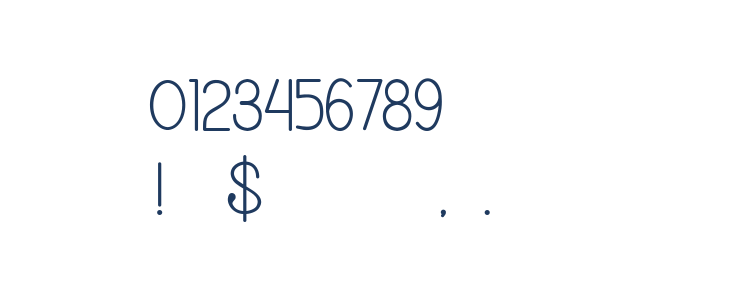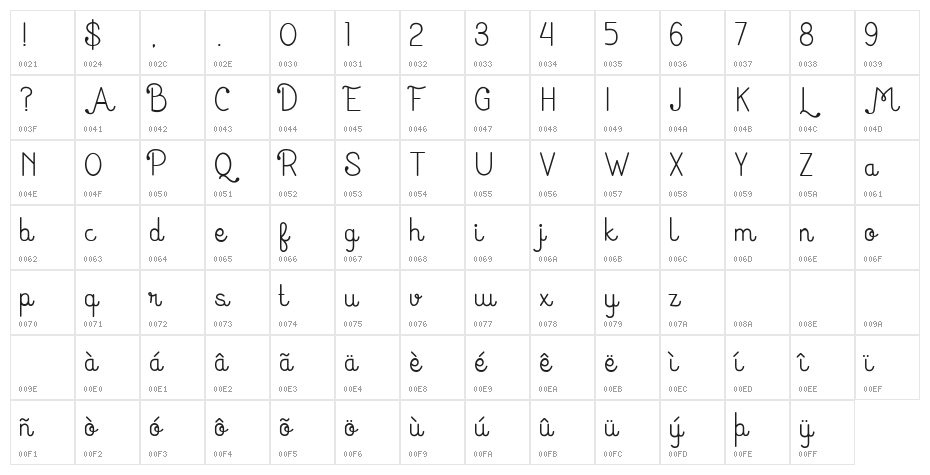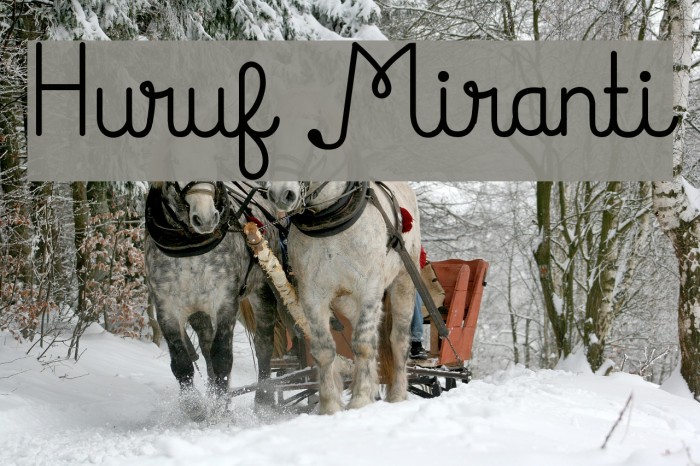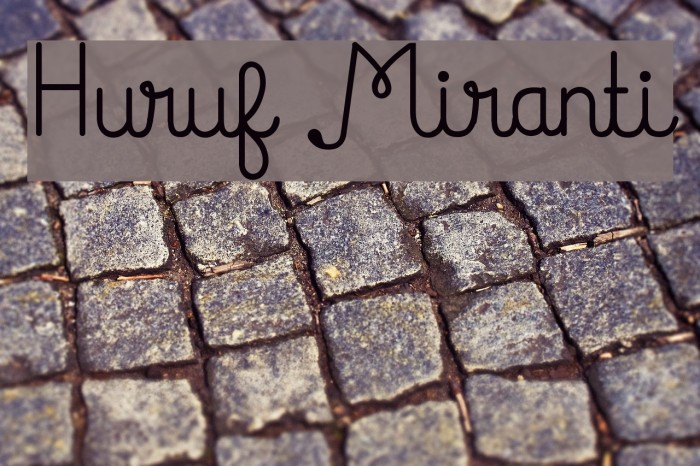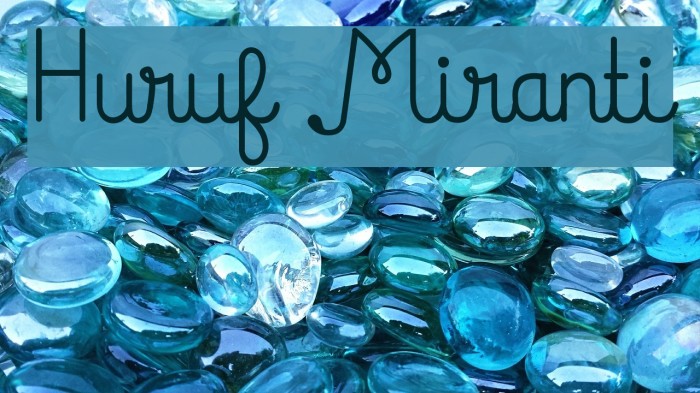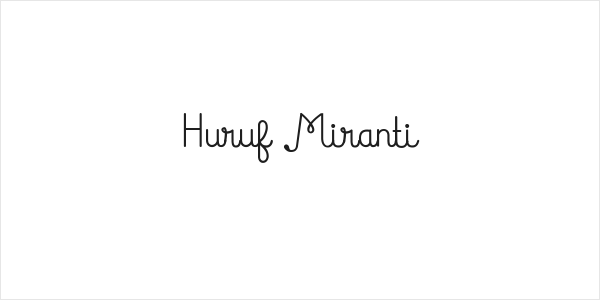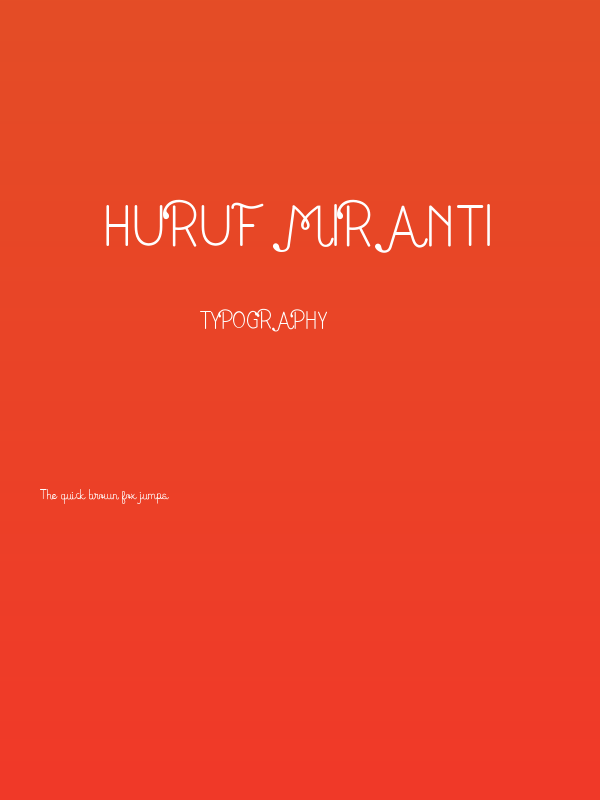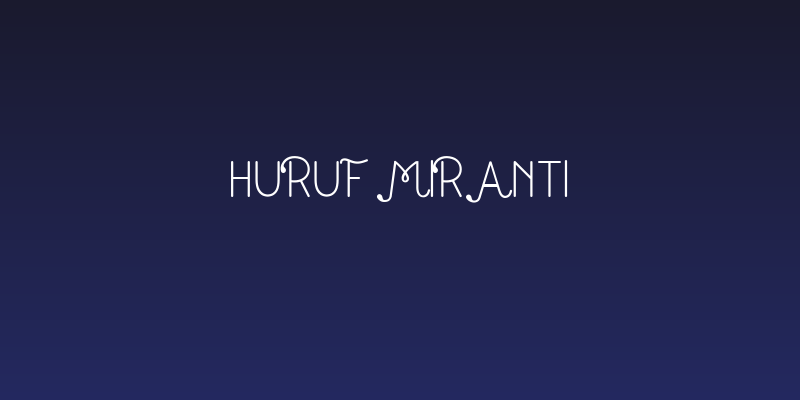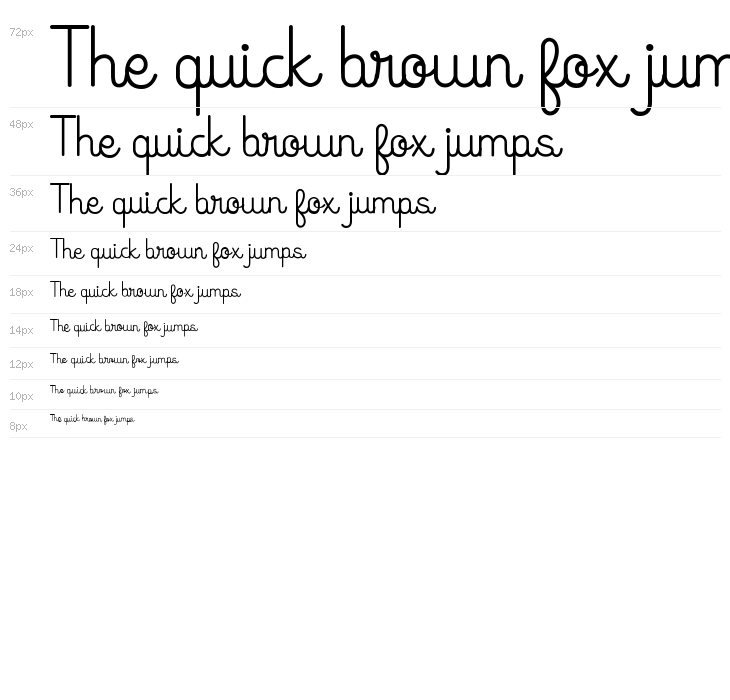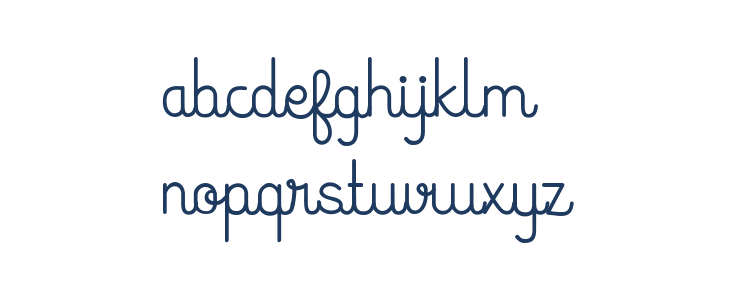
Huruf Miranti Font
Huruf Miranti Description
This font features a playful and whimsical design with a handwritten style. The uppercase letters have a unique, flowing quality with some characters incorporating loops and swirls, adding a touch of elegance. The lowercase letters maintain a consistent stroke width, enhancing readability while retaining a casual feel. Numbers and special characters are designed to match the overall aesthetic, ensuring a cohesive look across all text elements. The font's charm lies in its ability to convey a sense of creativity and informality, making it suitable for projects that require a personal touch.